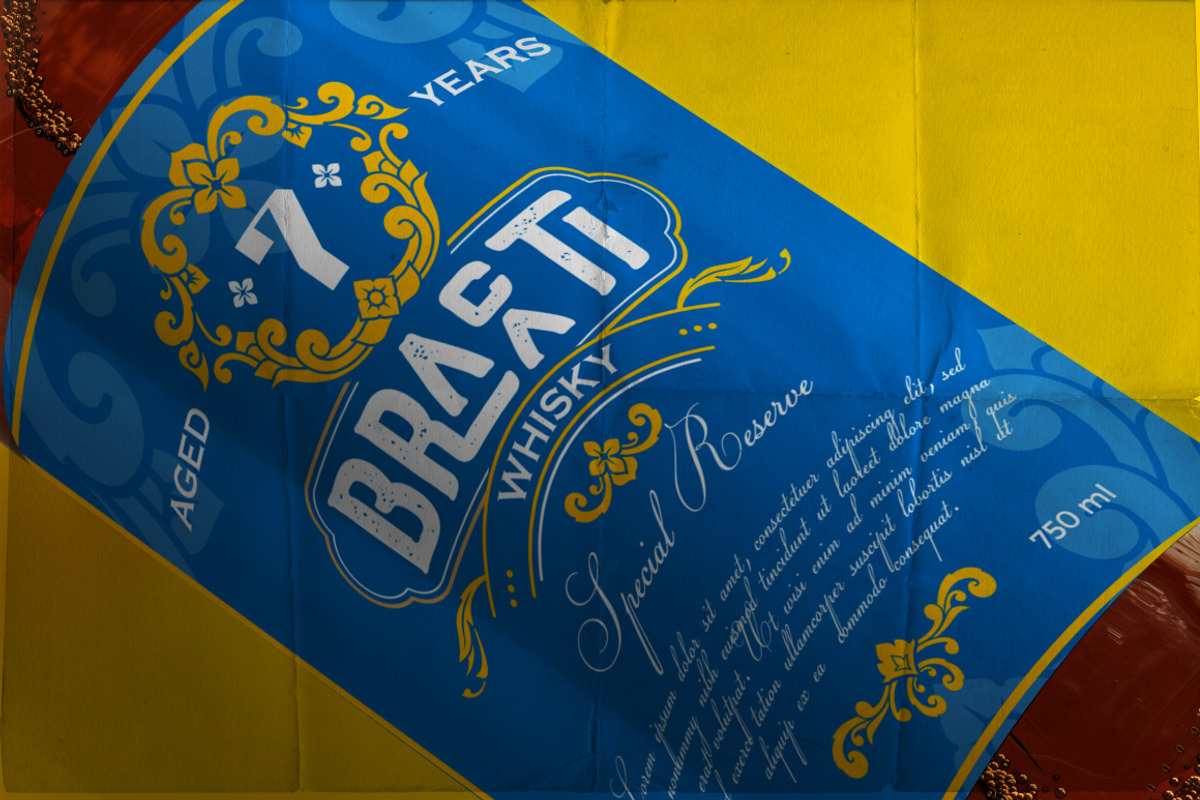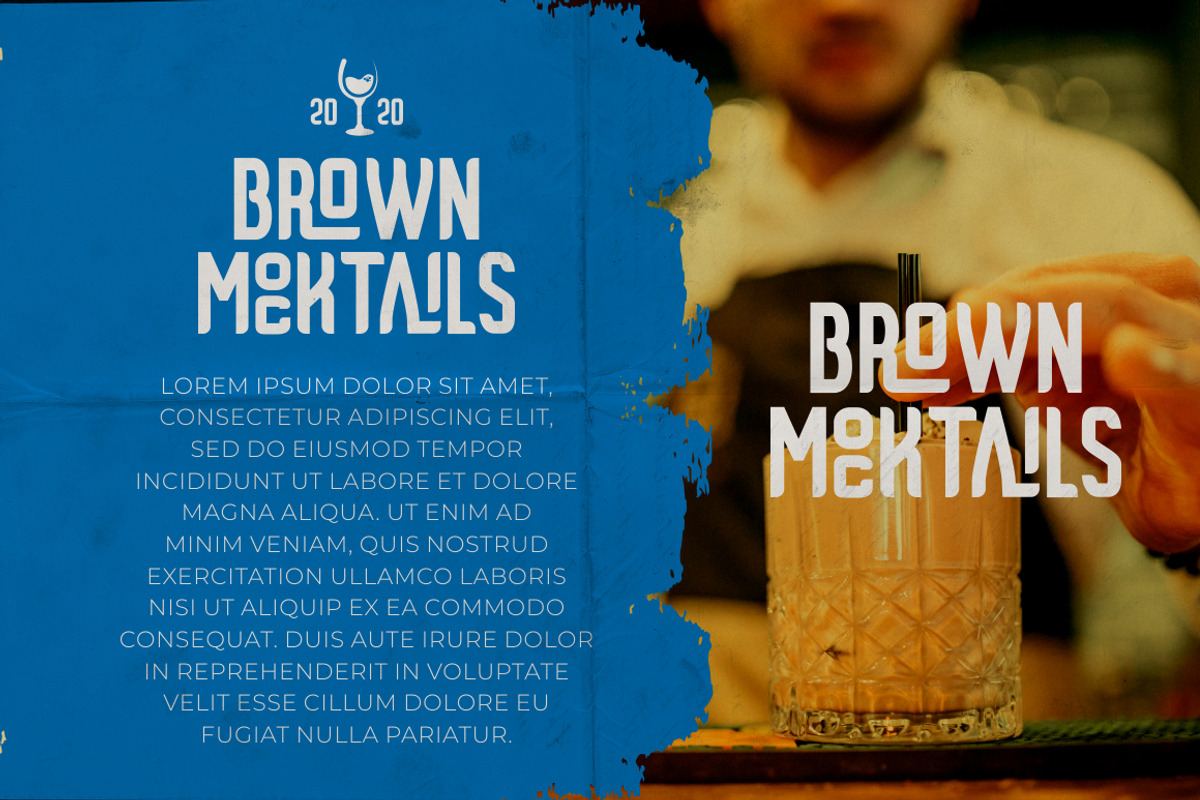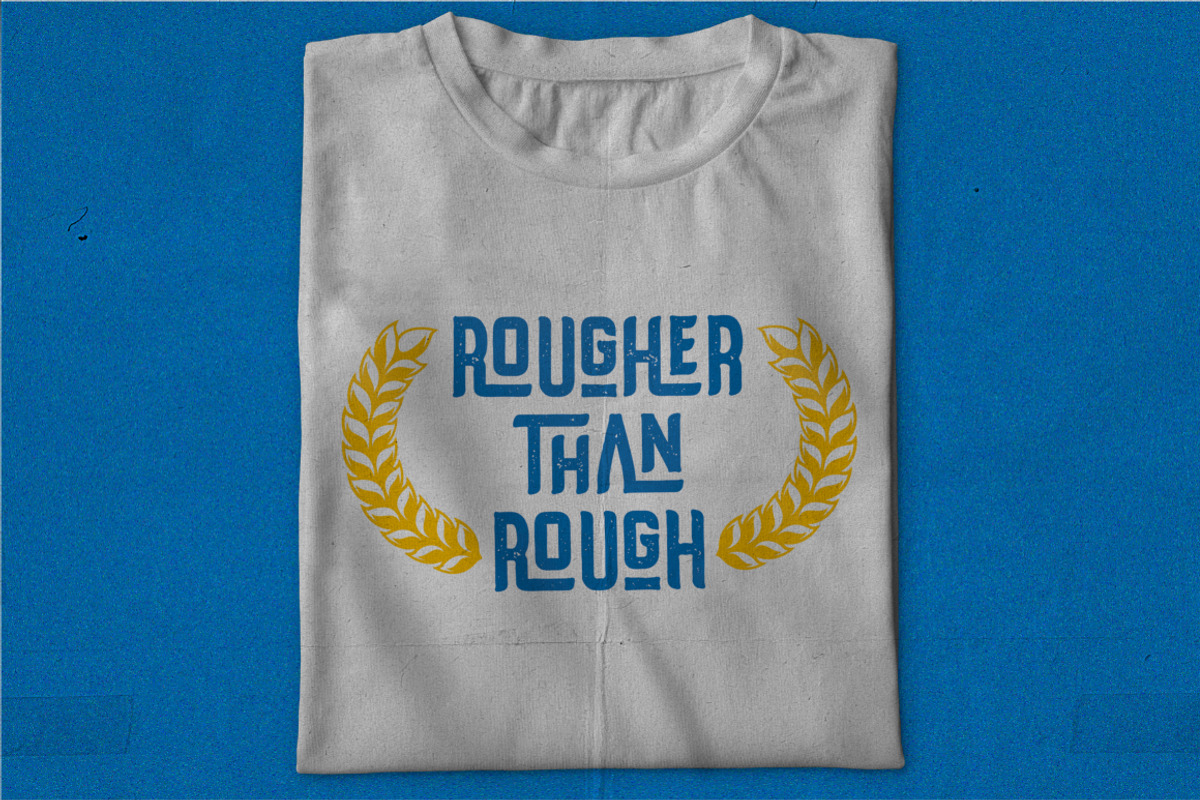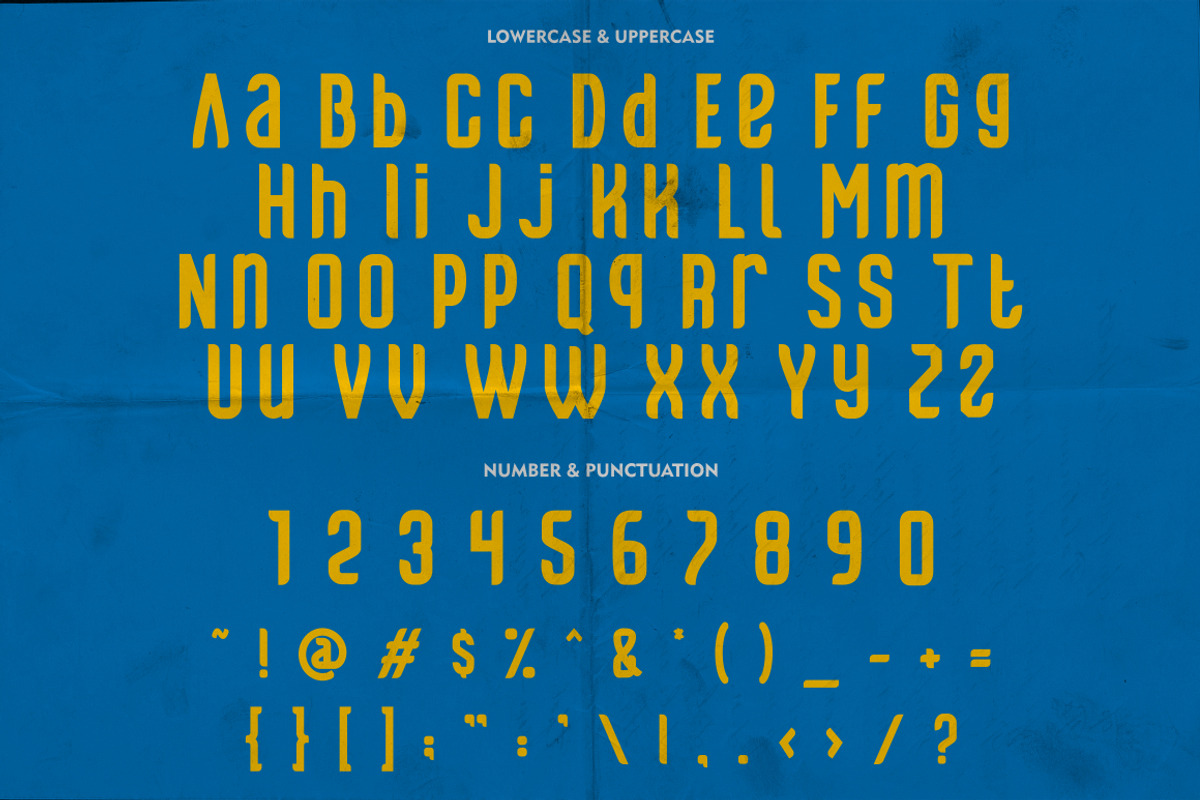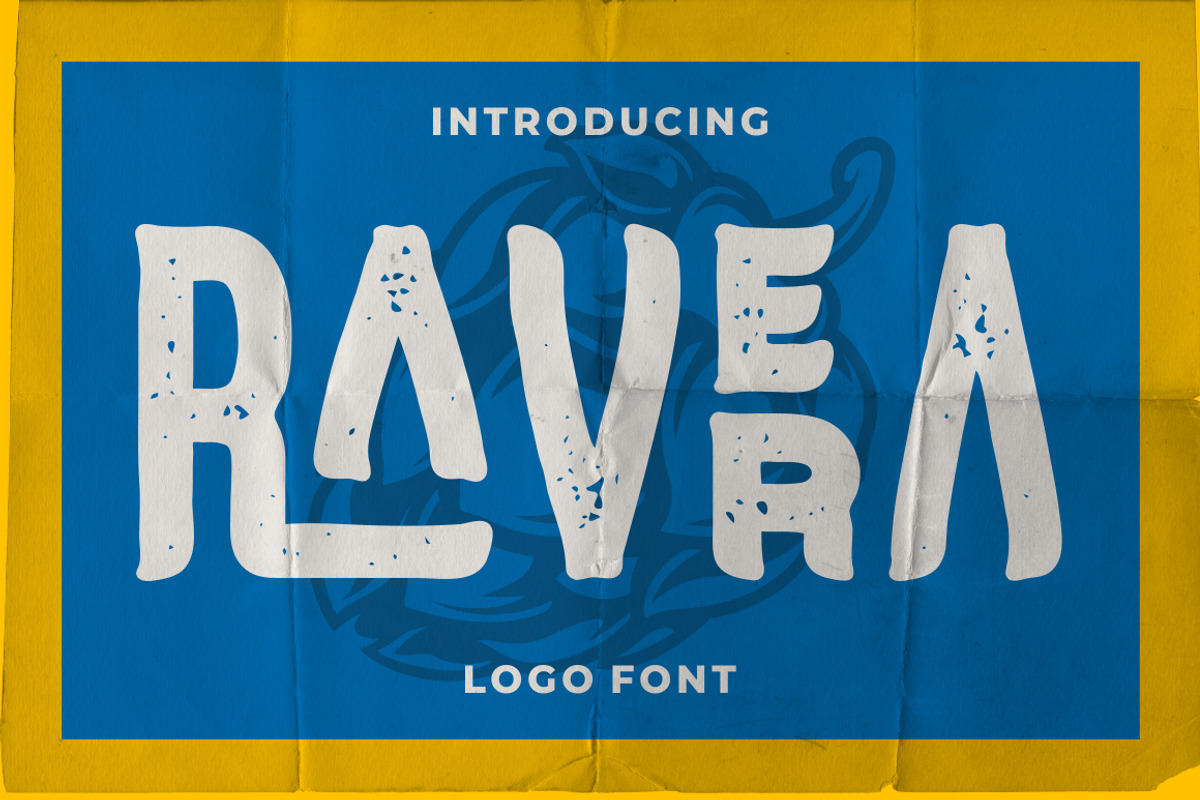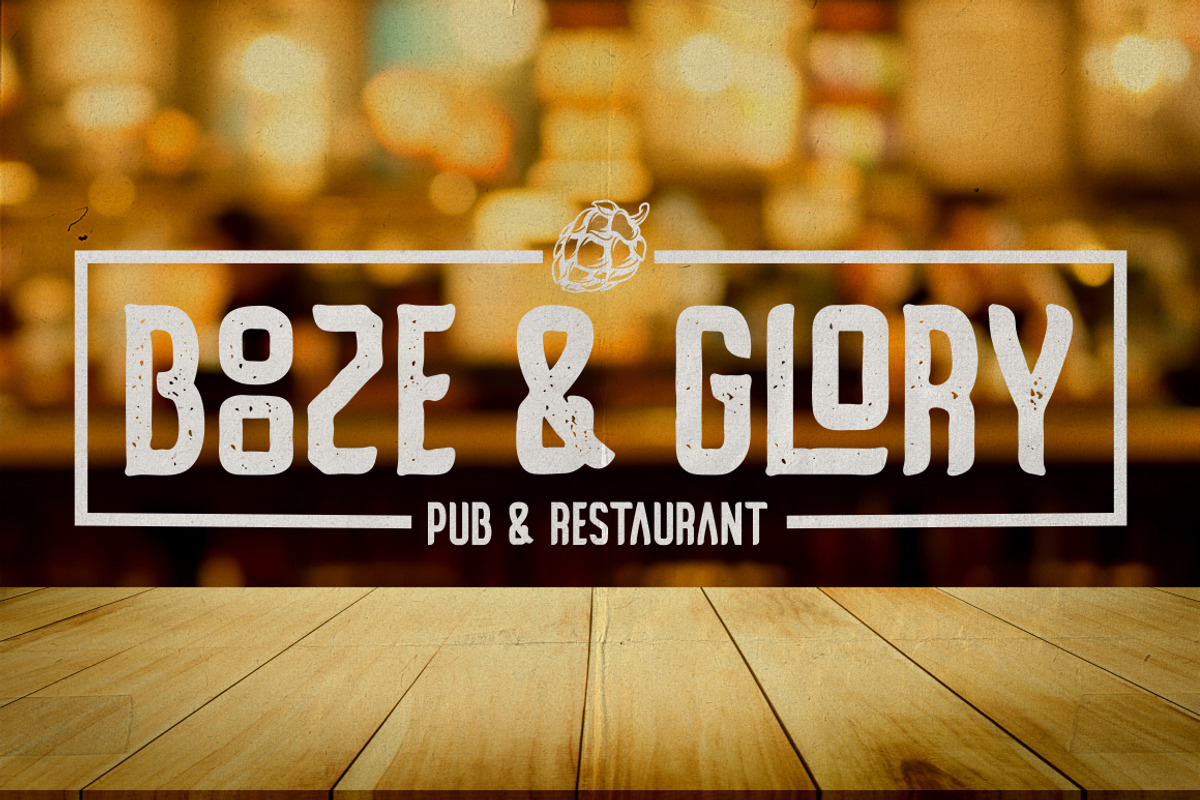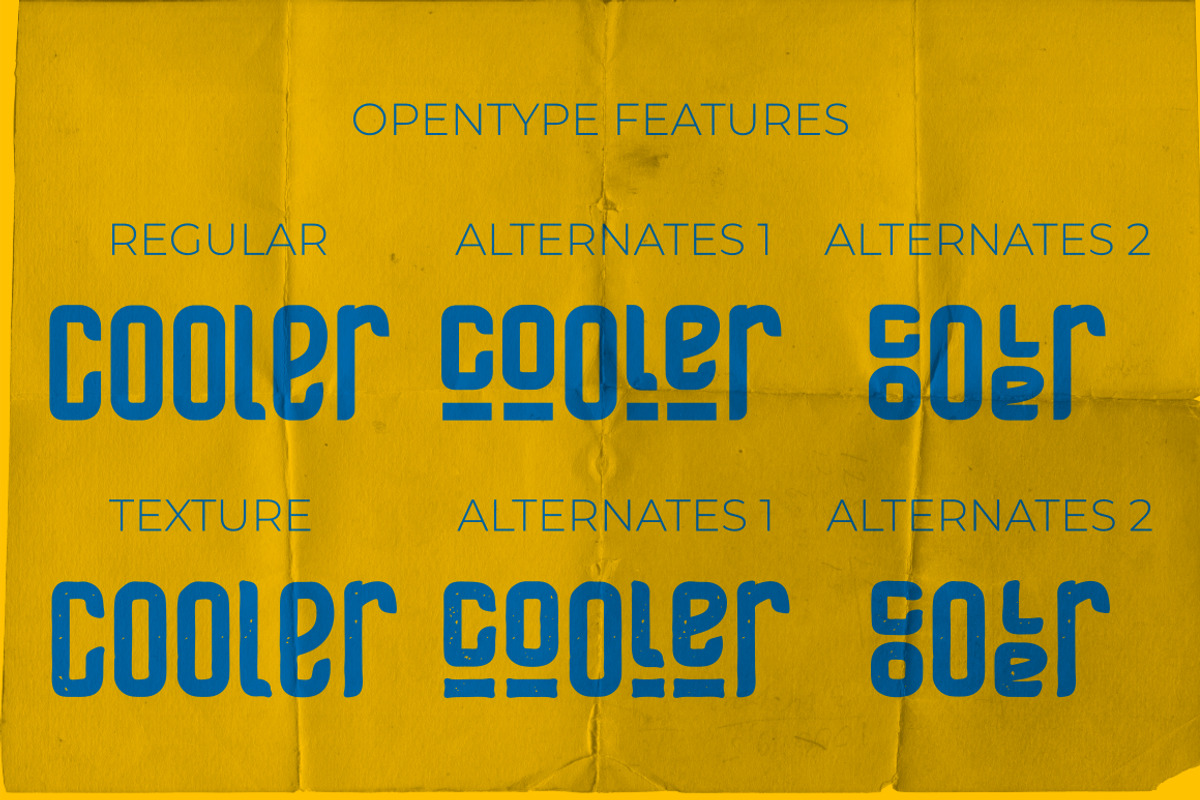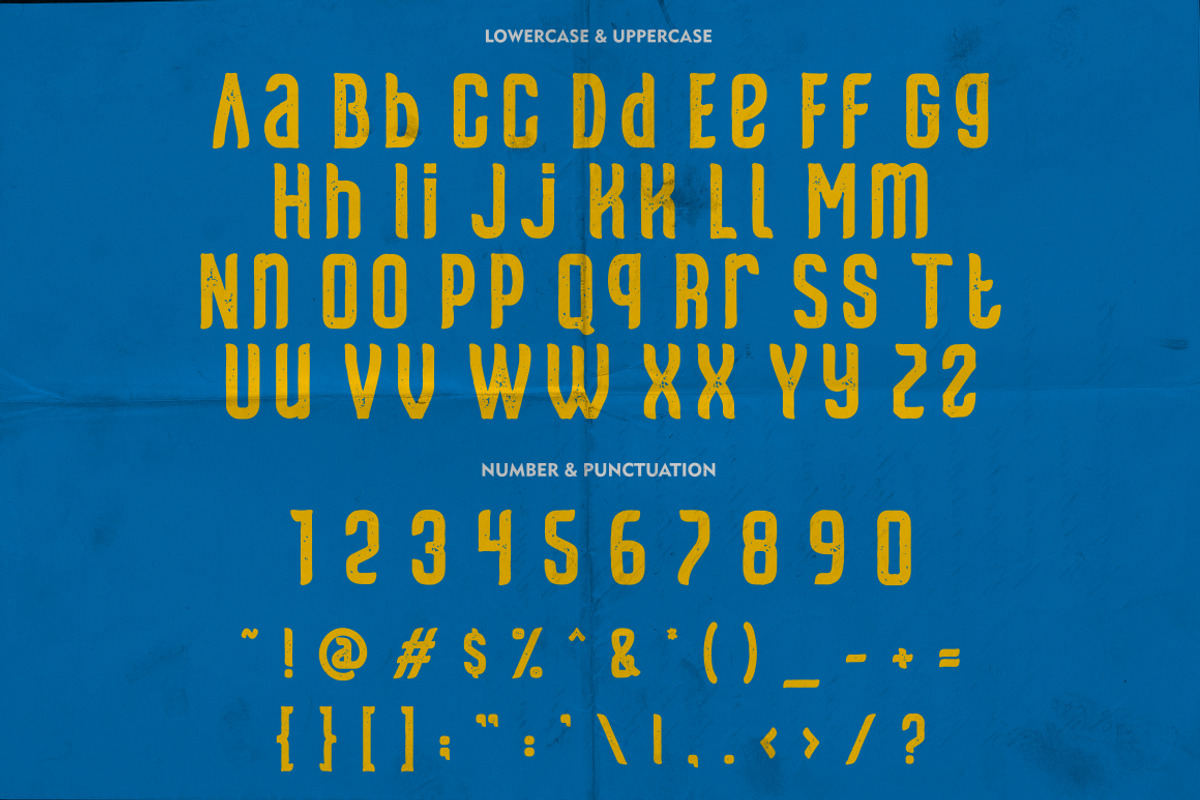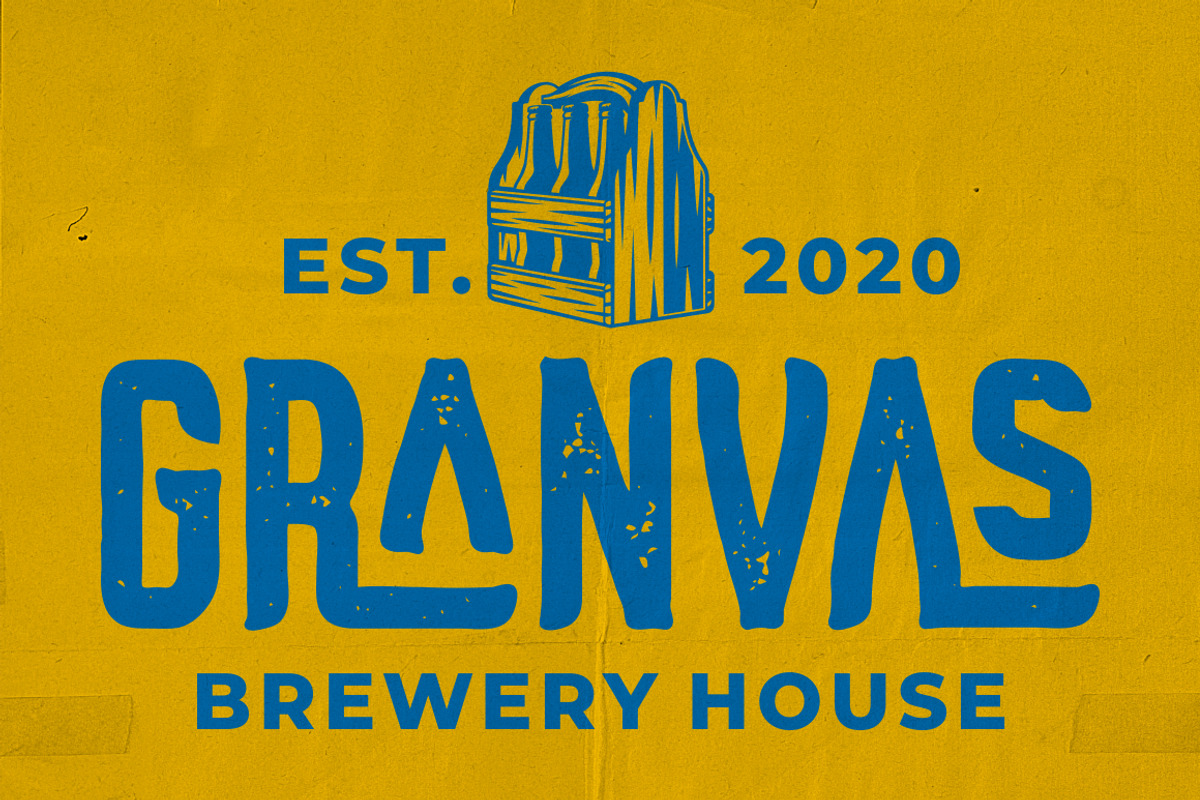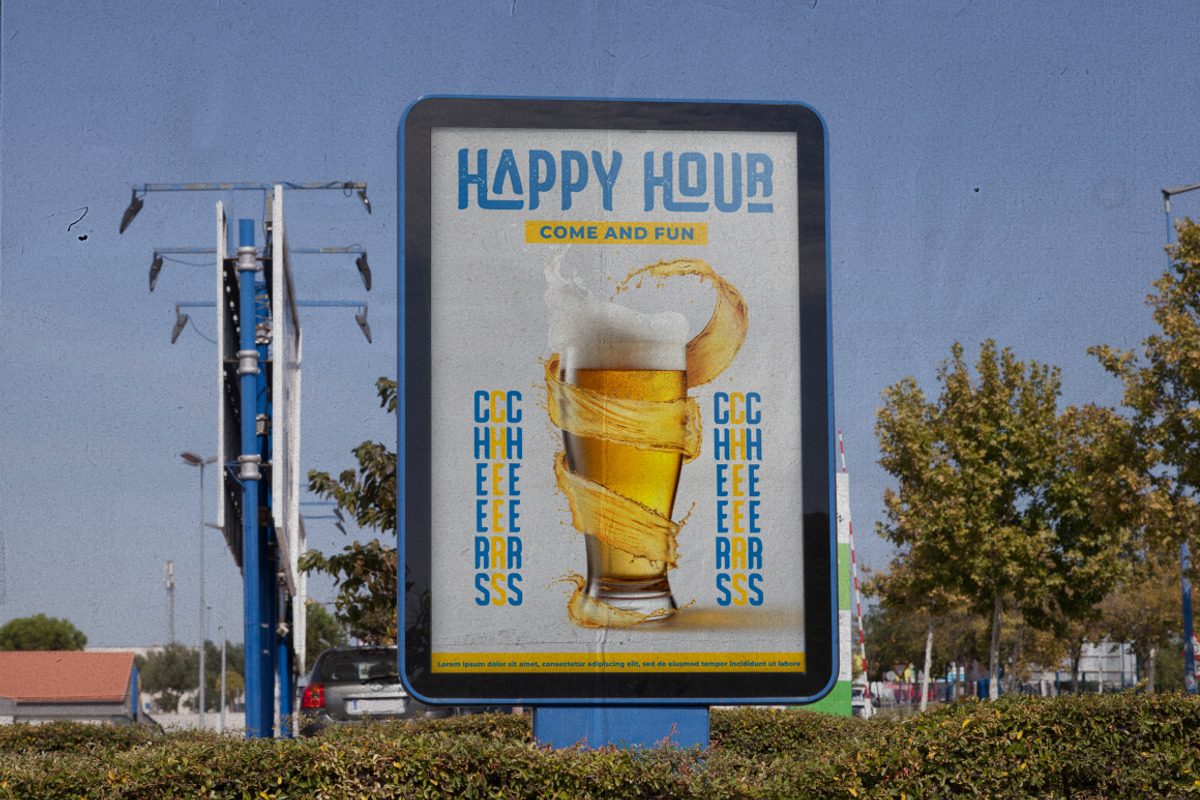
Ravera - Logo Font
Revera - Logo Font
Revera is a font inspired european style and the only fonts with shapes and styles that exactly resemble the european characters & Revera is easy to read and can be applied to all media and all can use this font without exception
Revera is suitable for your projects such as logo, wedding invitations, branding, landing pages, apparel, posters, headlines, greeting cards, invitation cards, social media, crafting, quote and more.
Comes with feature :
- Opentype (Alternates And Ligatures)
- Number, Punctuation And Symbols
- Multilanguage Support.